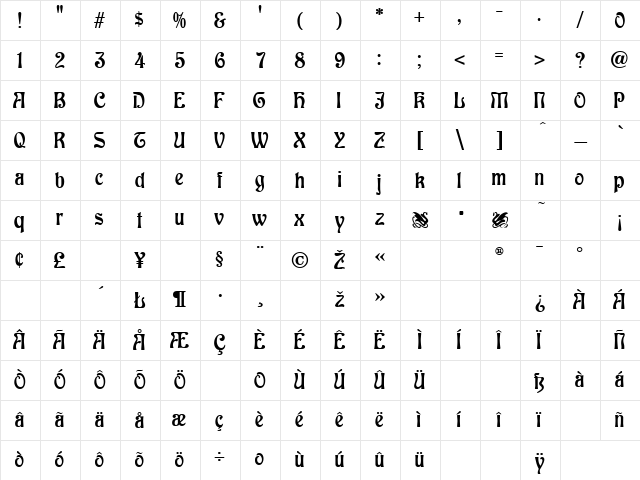
Baldur Regular
Design Context for Baldur
Baldur is a composed and adaptable typeface that performs quietly and consistently across a wide range of design contexts.